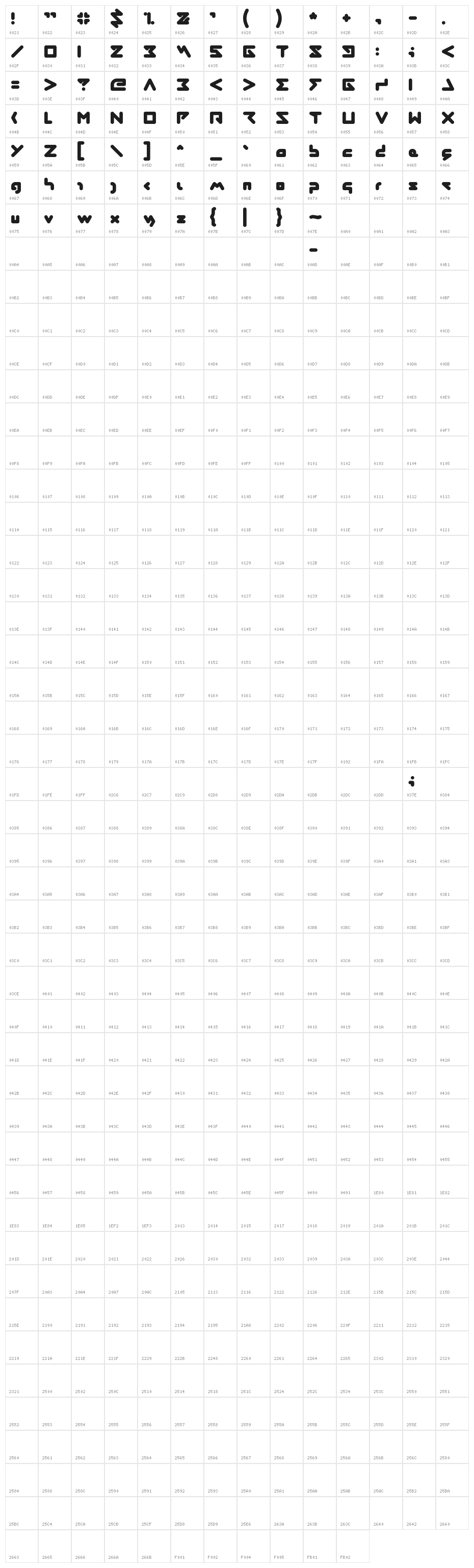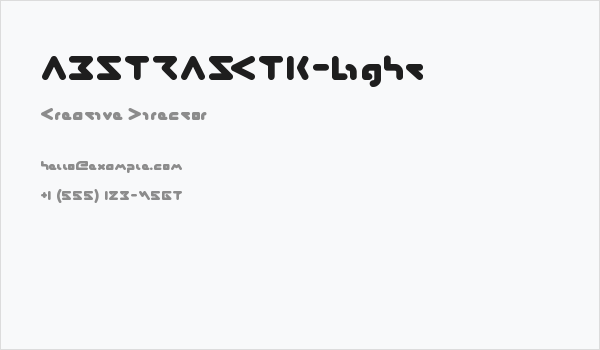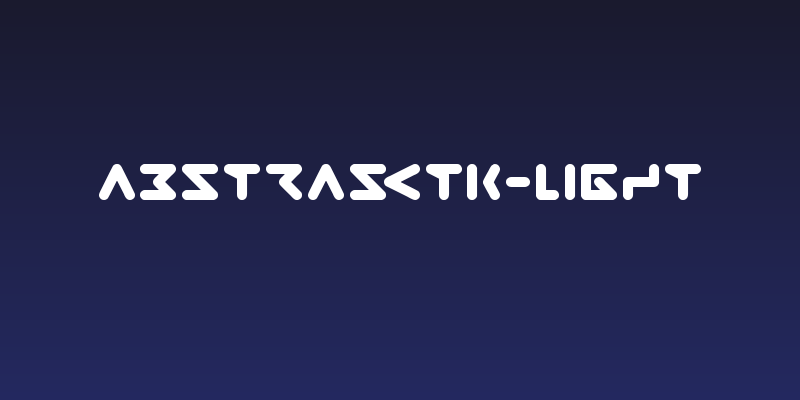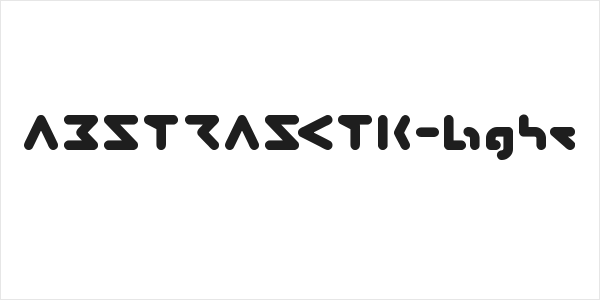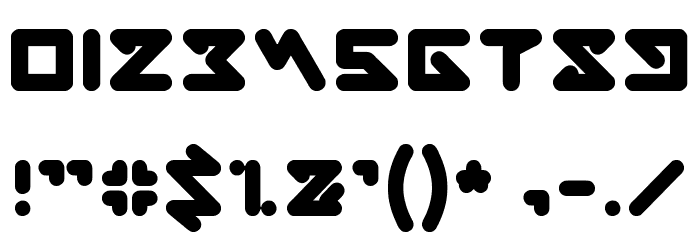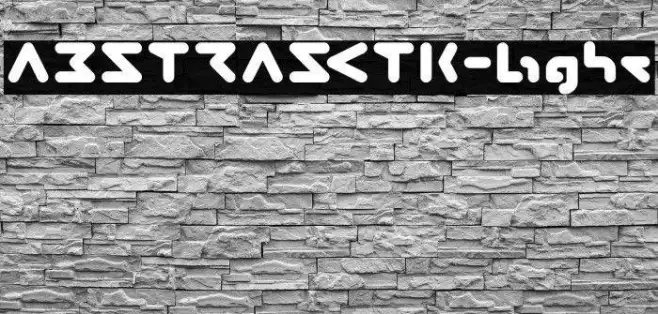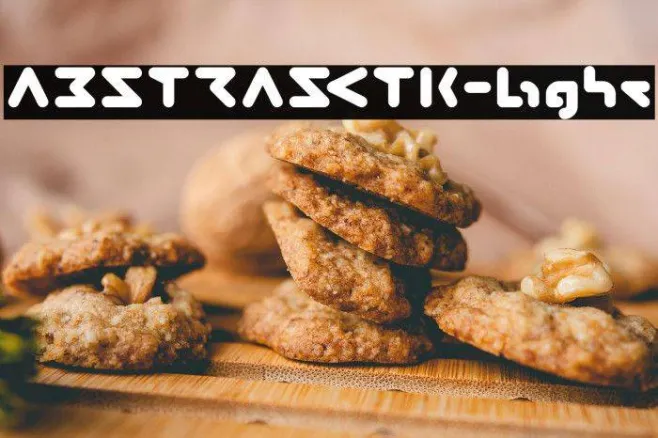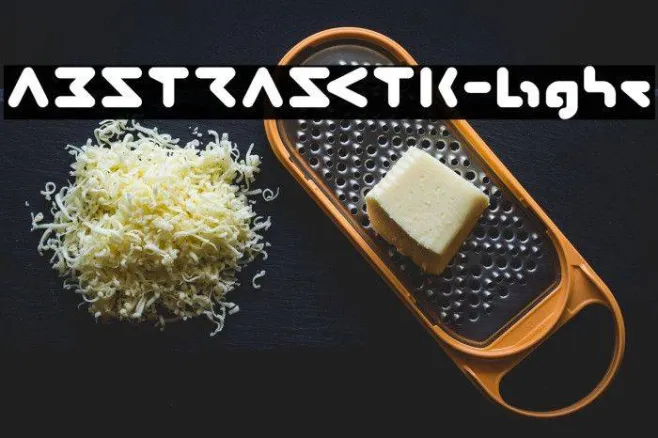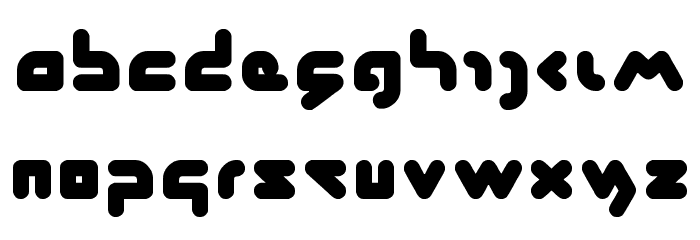
ABSTRASCTIK-Light Font
ABSTRASCTIK-Light Description
This font features a bold, futuristic design with geometric shapes and thick strokes. The characters are constructed with a unique combination of angles and curves, giving it a distinct, modern appearance. The uppercase and lowercase letters share a consistent style, emphasizing a cohesive look across the alphabet. Numbers and special characters follow the same design principles, ensuring uniformity throughout. The font's boldness and distinctive style make it stand out, suitable for projects that require a strong visual impact.
| Proposed Projects | Ideal for sci-fi themed designs, video game titles, posters, and branding that requires a modern, edgy look. |